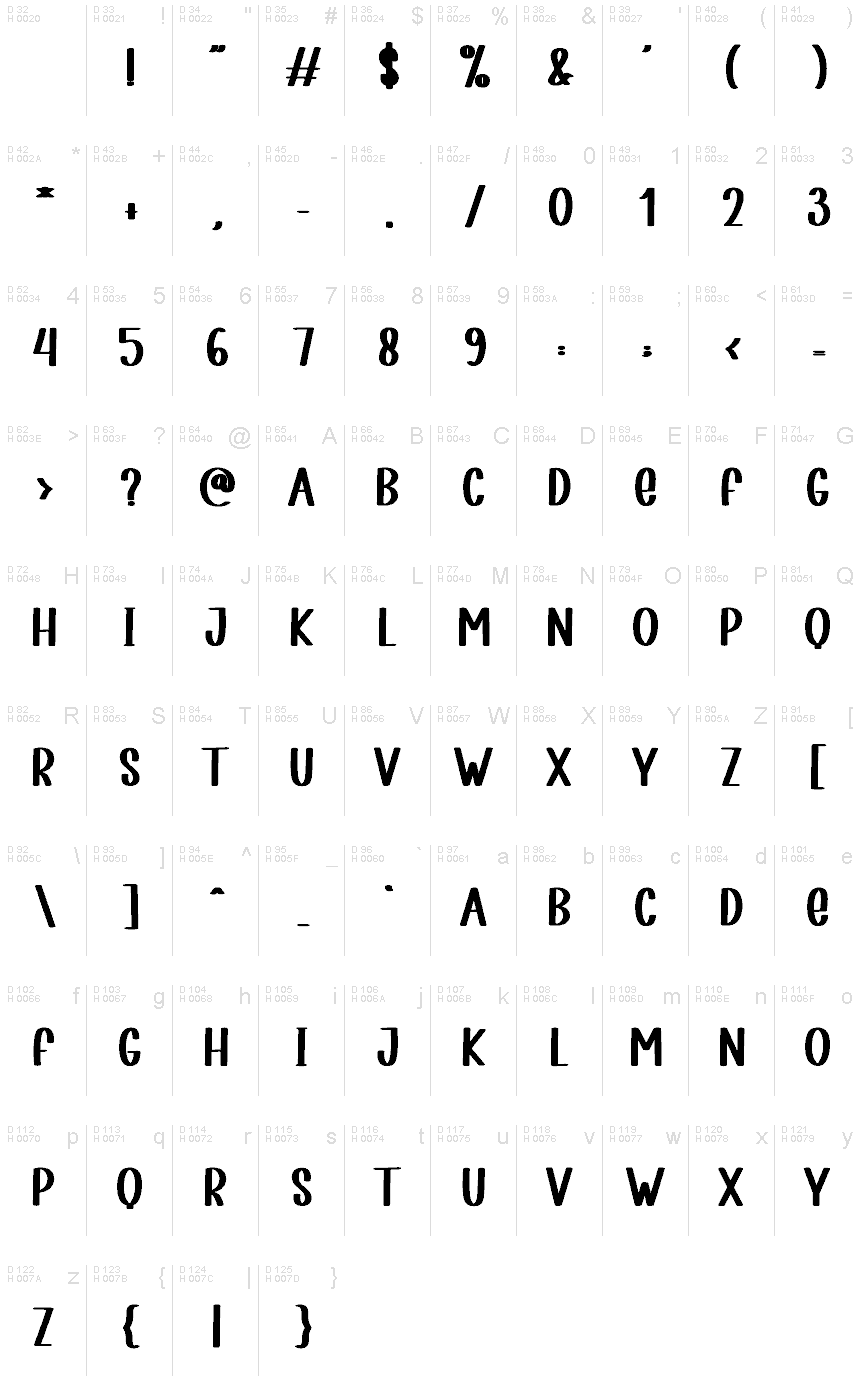
Green Market
Make your local farms look inviting and eco-friendly with this free font from Andi Moz.
The Green Market display font mimics the style of a handmade typeface with bold and simple strokes that can fit your designs perfectly, making them perfect for projects focused on food, nutrition and natural products. It can be used for different purposes, like logotypes for vegan food businesses, greeting cards, magazines articles and posts on social media.